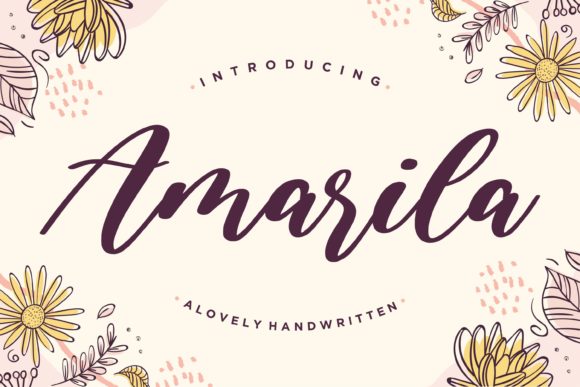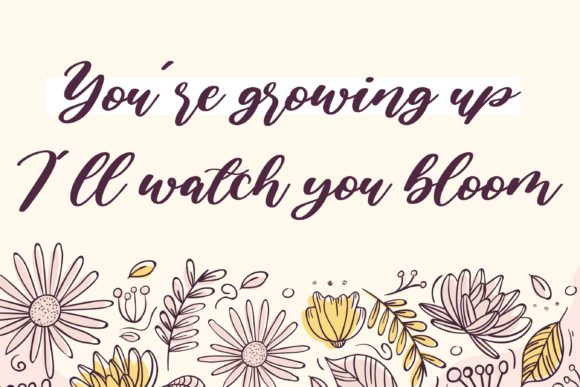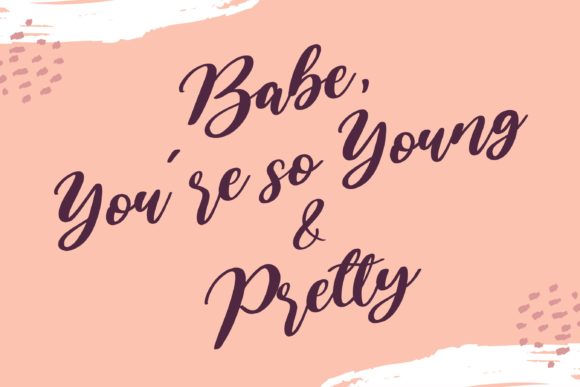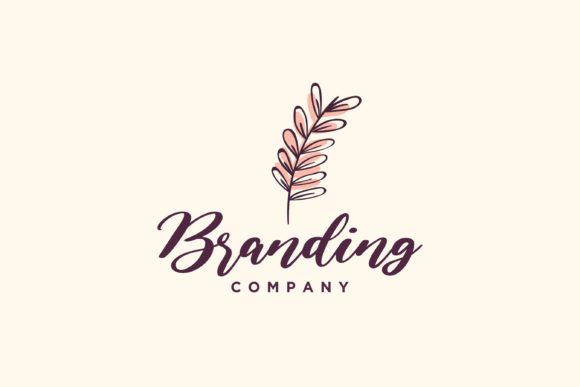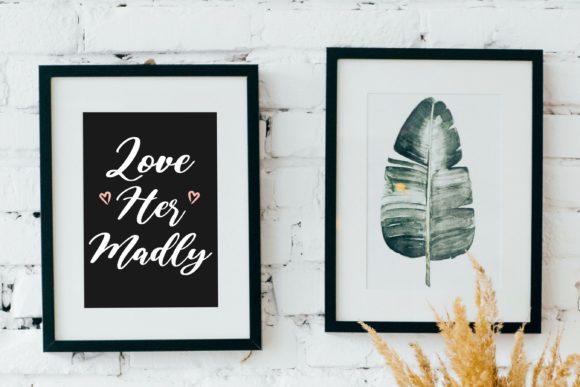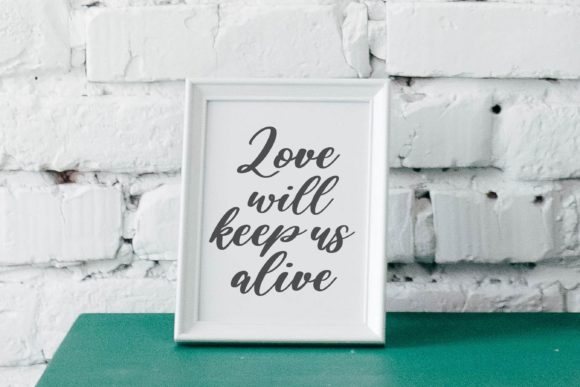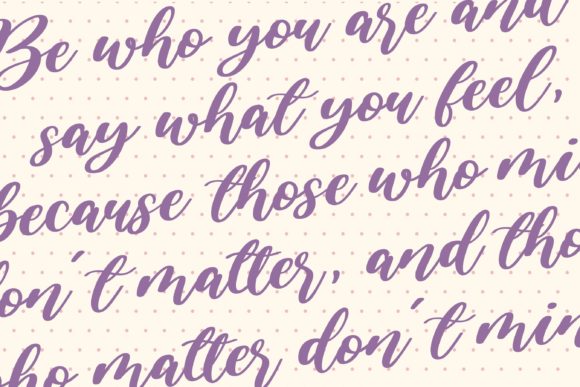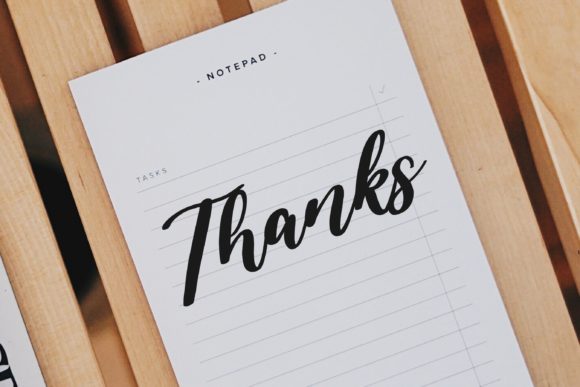
Amarila Font
About Amarila Font
Amarila is a whimsical handwritten font, created with the help of a brush pen. Adding a delicate touch to all your designs, Amarila can easily become a true favorite due to its relaxed and versatile style!